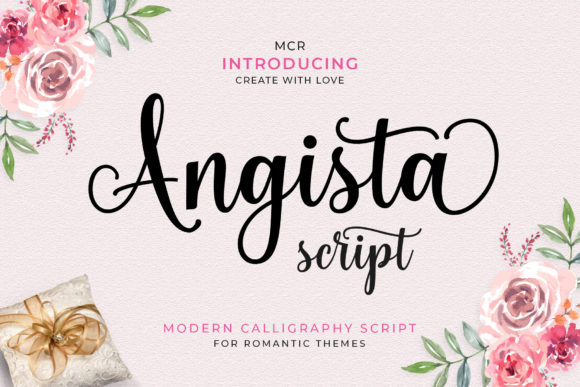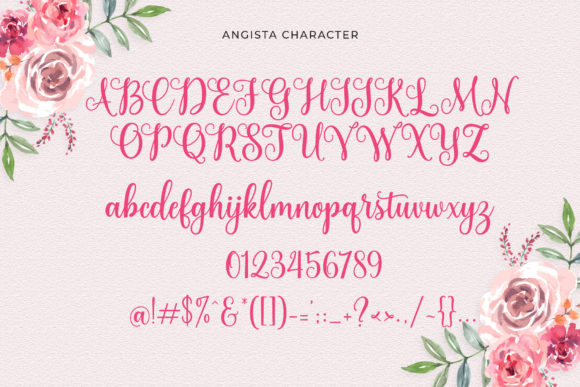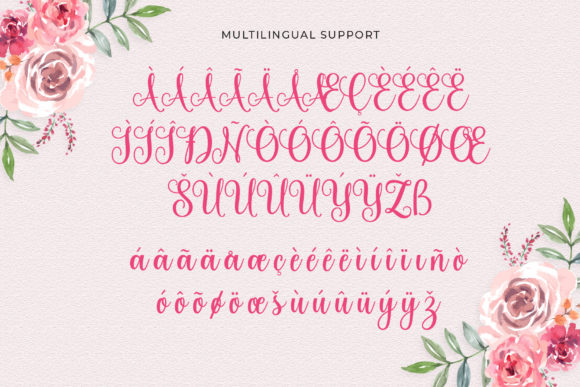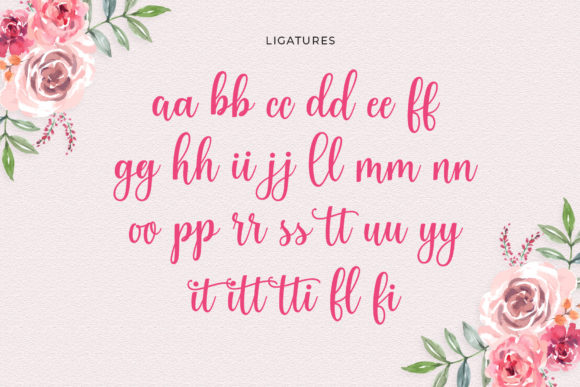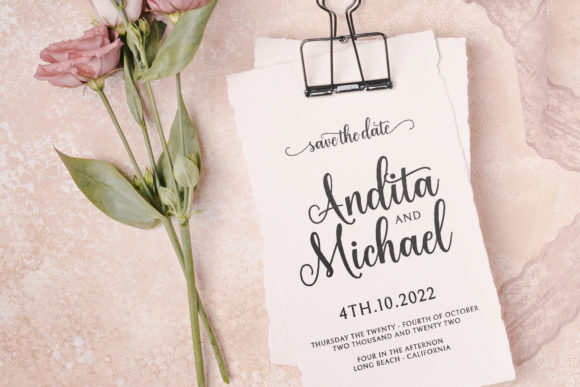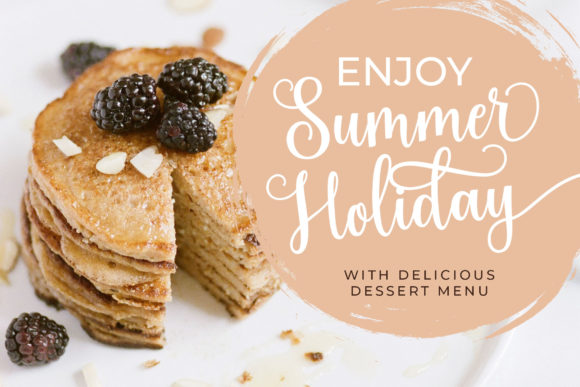
About Angista Script Font
Angista Script is a beautiful and delicate script font. Featuring characters that dance along the baseline, this font will add a luxury spark to any design project that you wish to create!Angista Script is PUA encoded which means you can access all of the glyphs and swashes with ease!